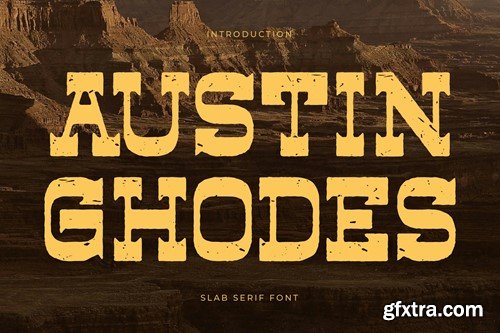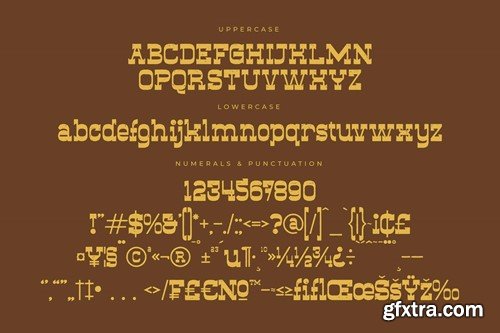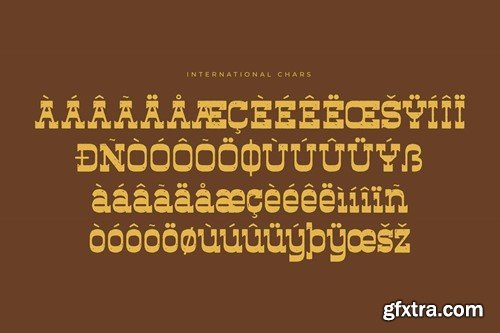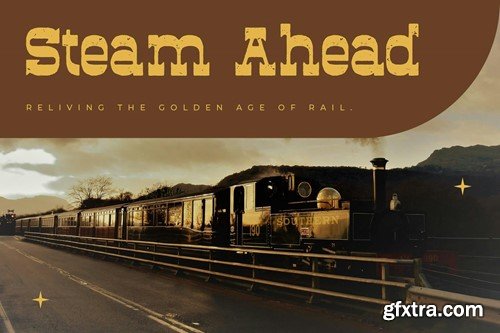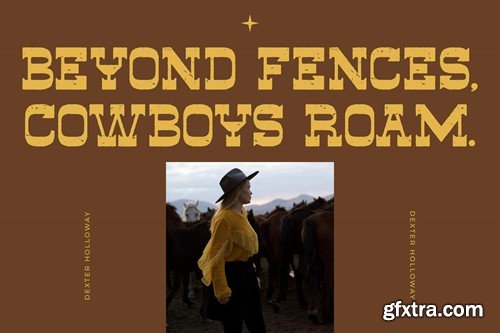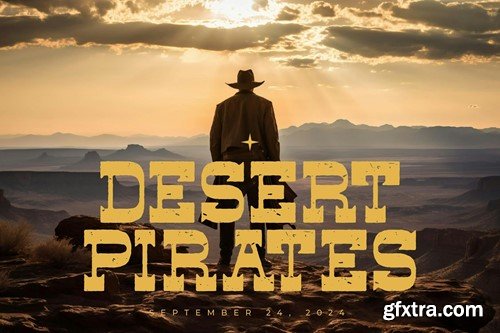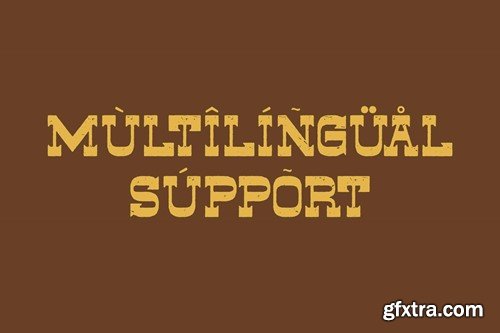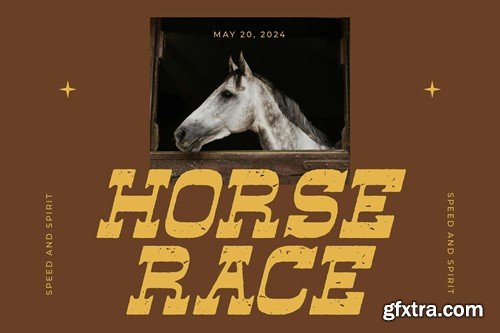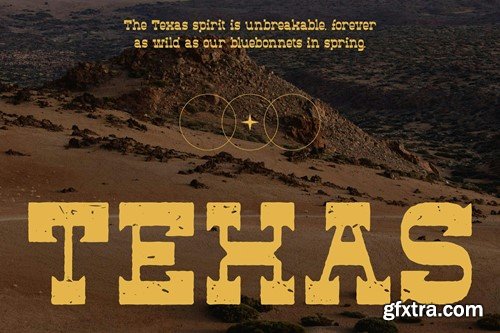
Austin Ghodes Slab Serif Font FYLHF3V
Austin Ghodes Slab Serif Font
Hi ladies & gentlemen, this is one of our fonts suitable to complement your digital and printed creative products. This font is perfect for posters, social media posts, branding, personal projects, etc.